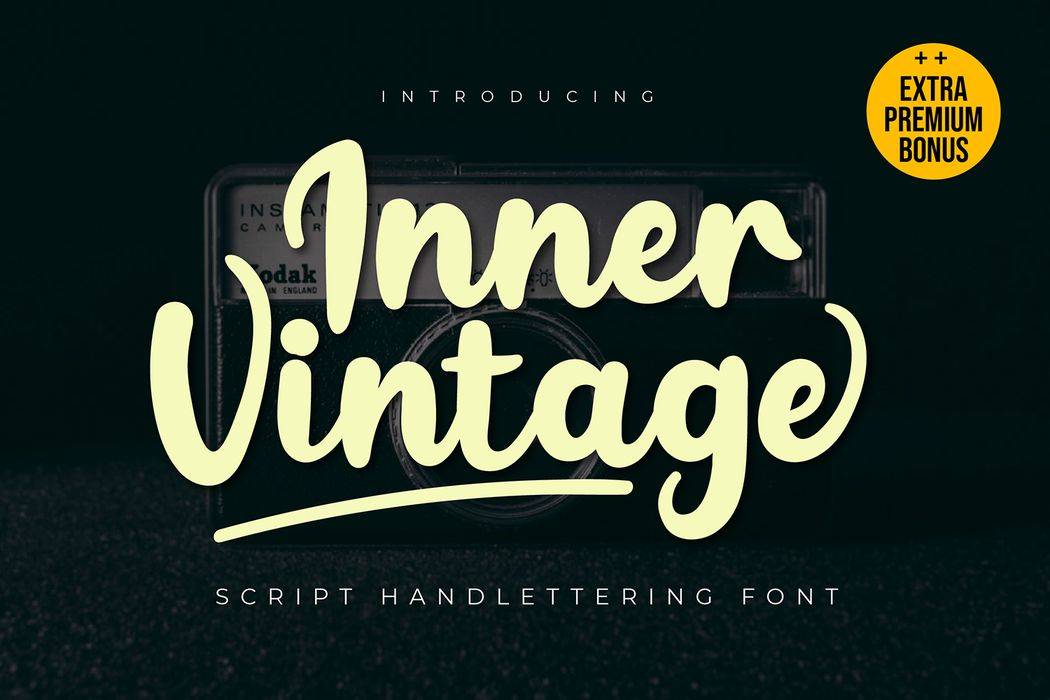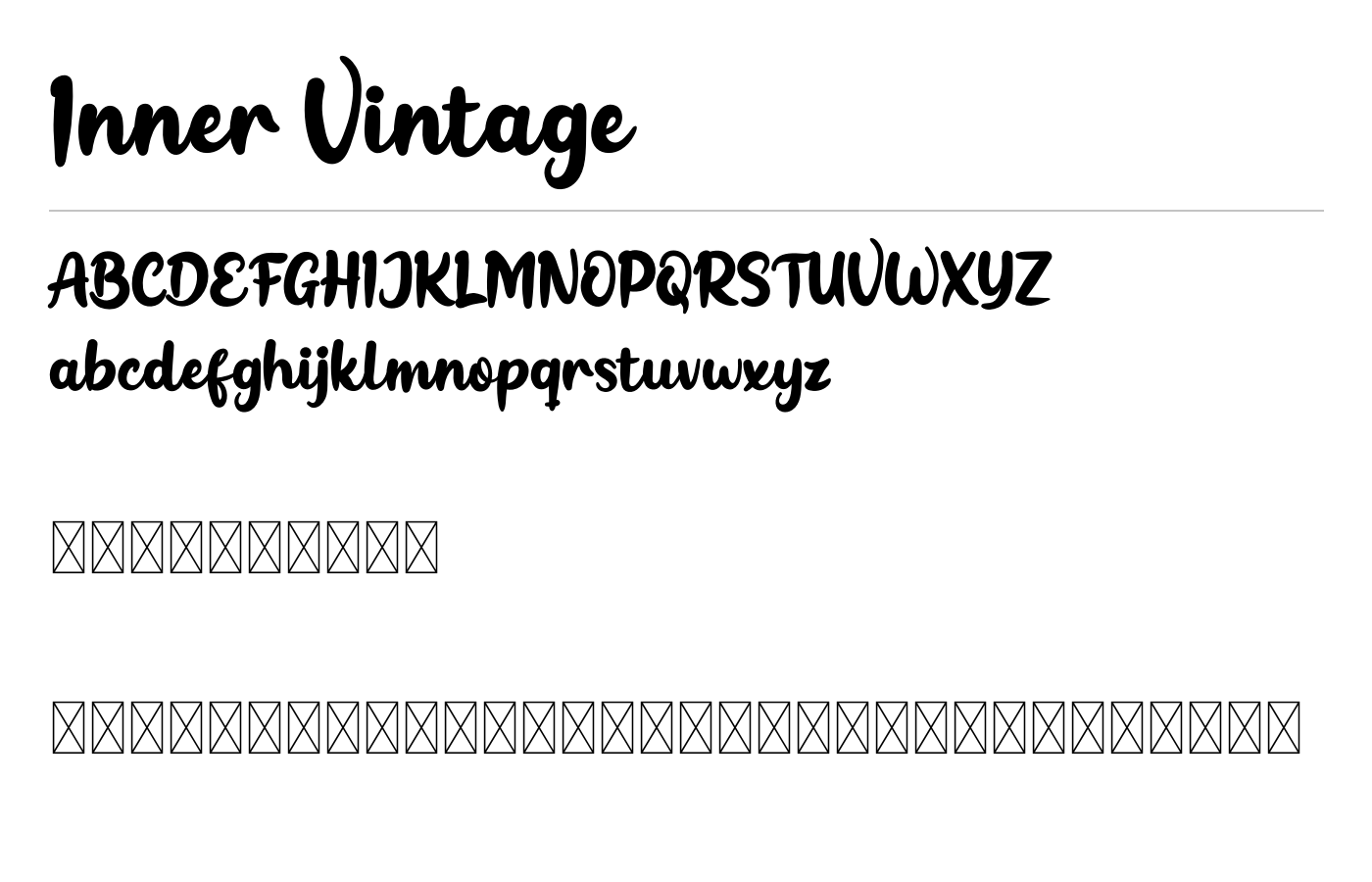
Inner Vintage is a charming script font with a bold, rounded weight and playful, hand-drawn style. Its lively, informal letterforms with smooth curves and slightly exaggerated shapes give it a warm, nostalgic feel, perfect for branding that seeks a friendly, approachable vintage vibe. This font works wonderfully for logos, packaging, and headlines where a personal and creative touch is desired.
Inner Vintage Font
About Inner Vintage Font